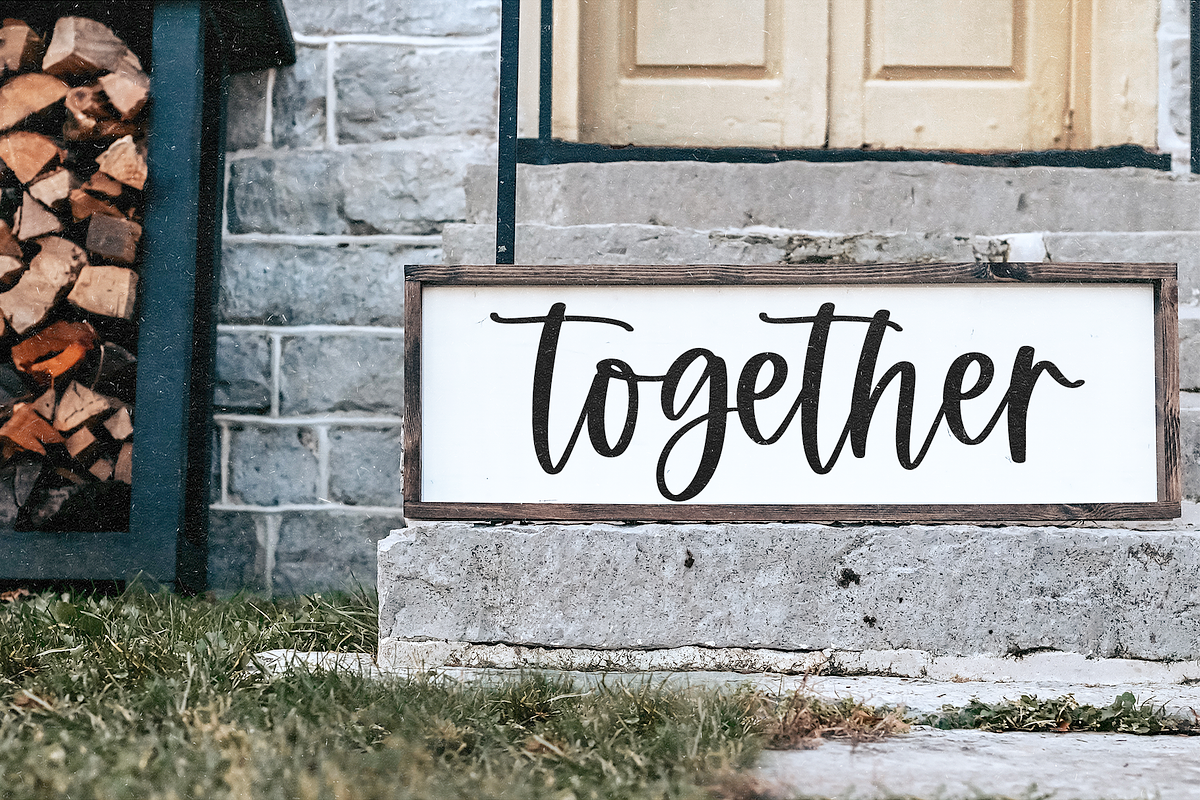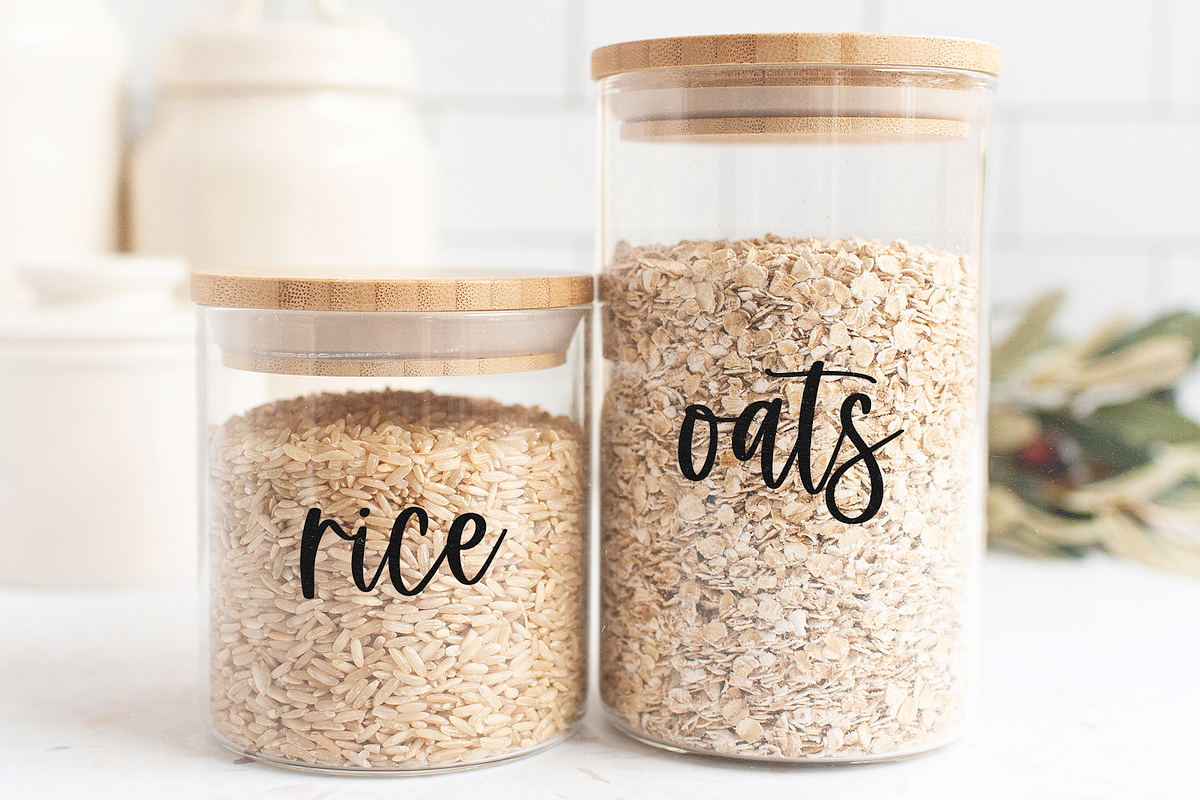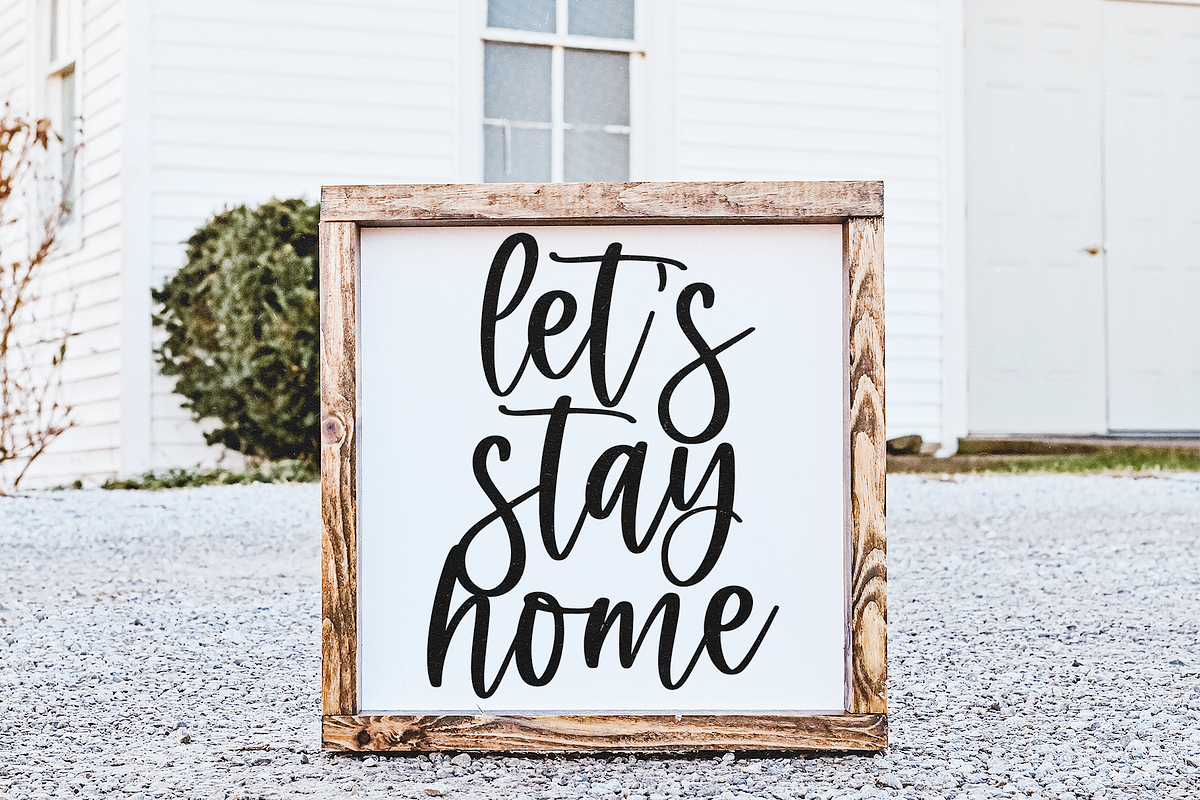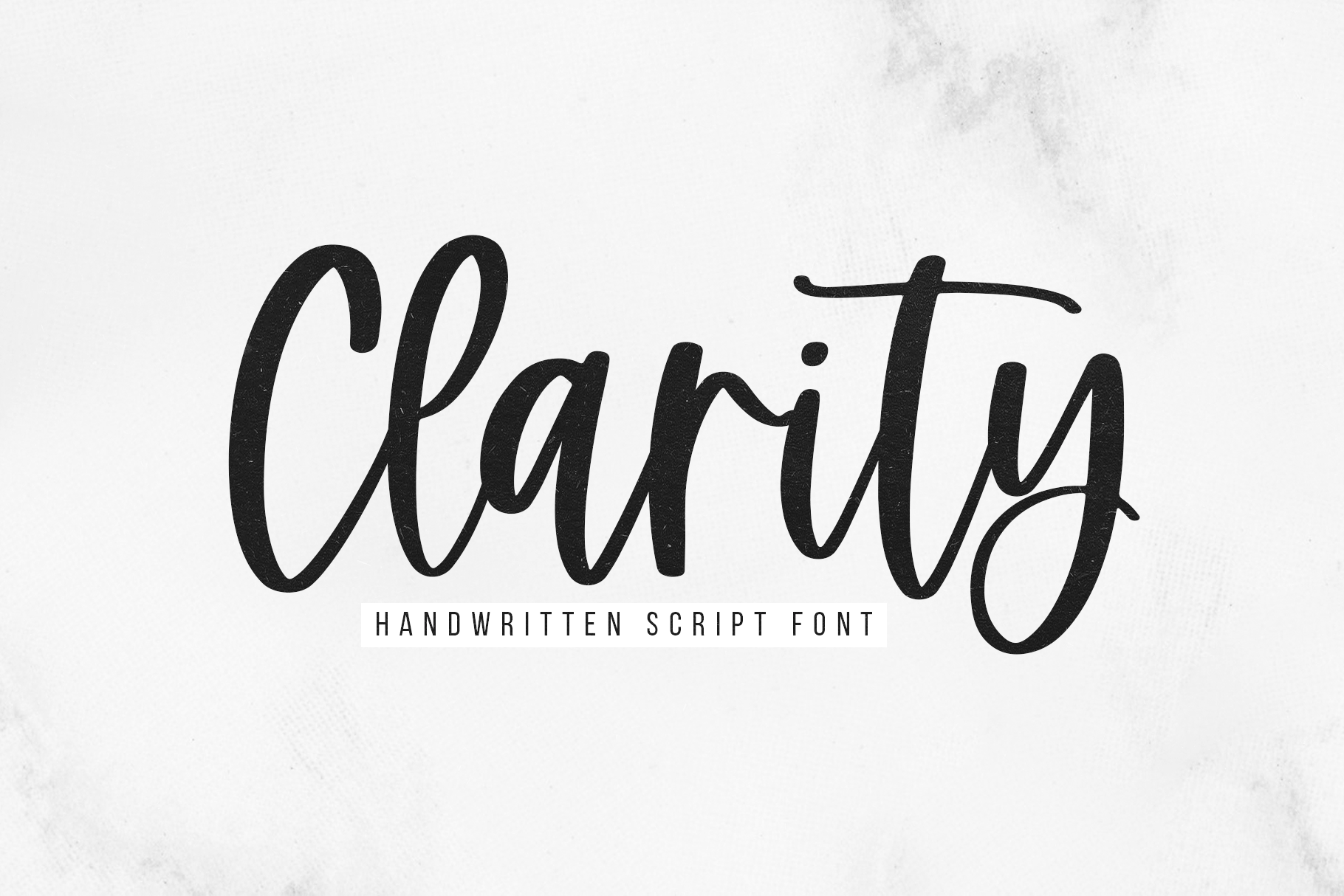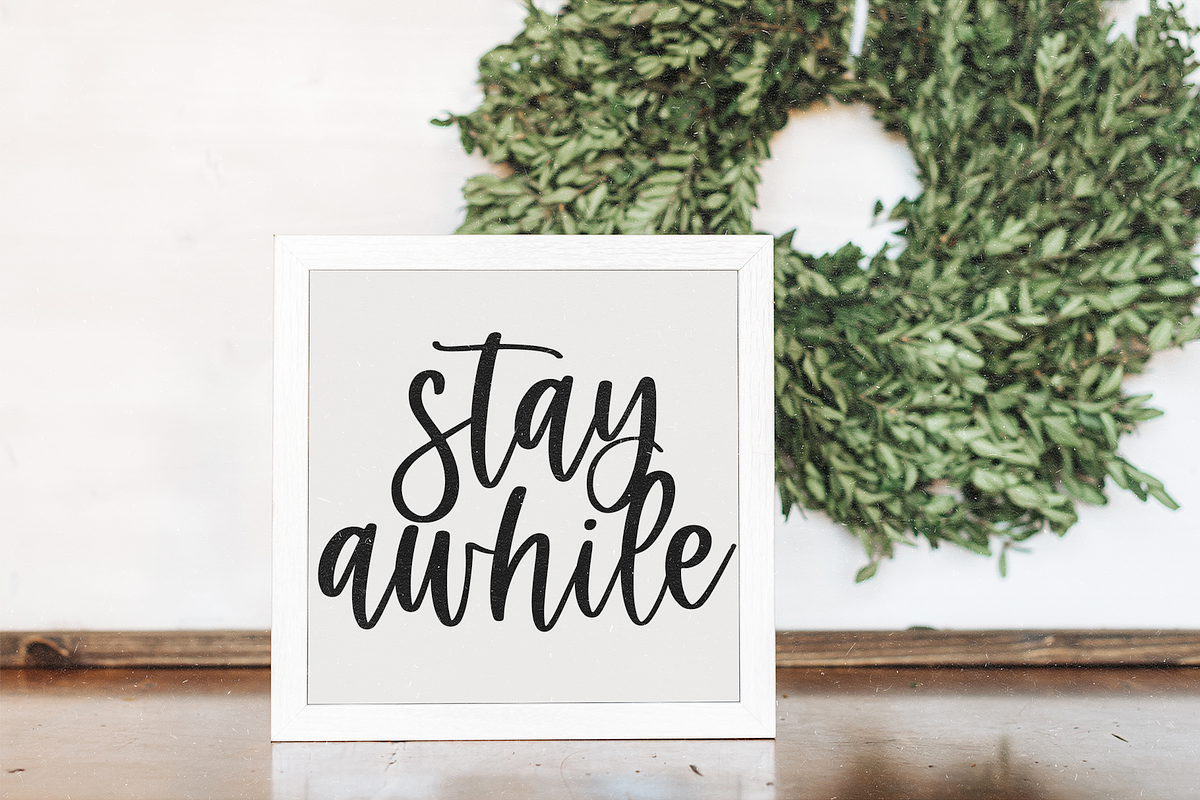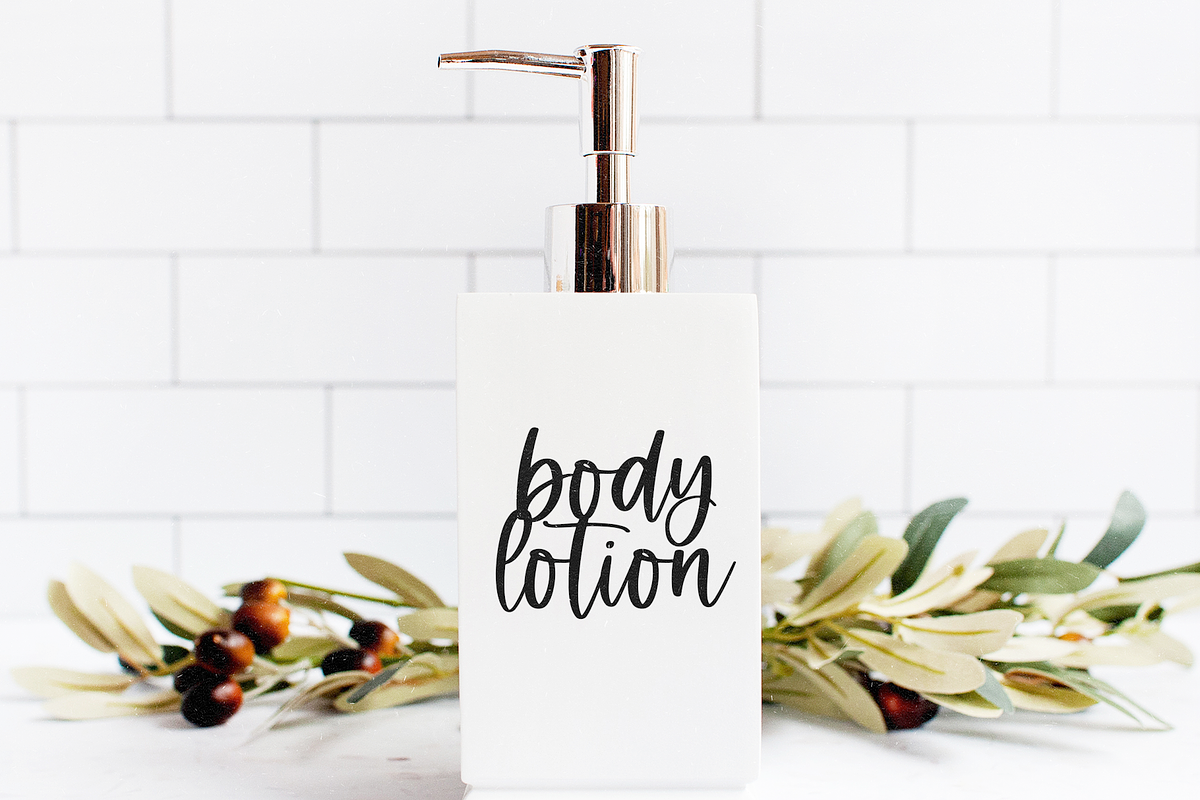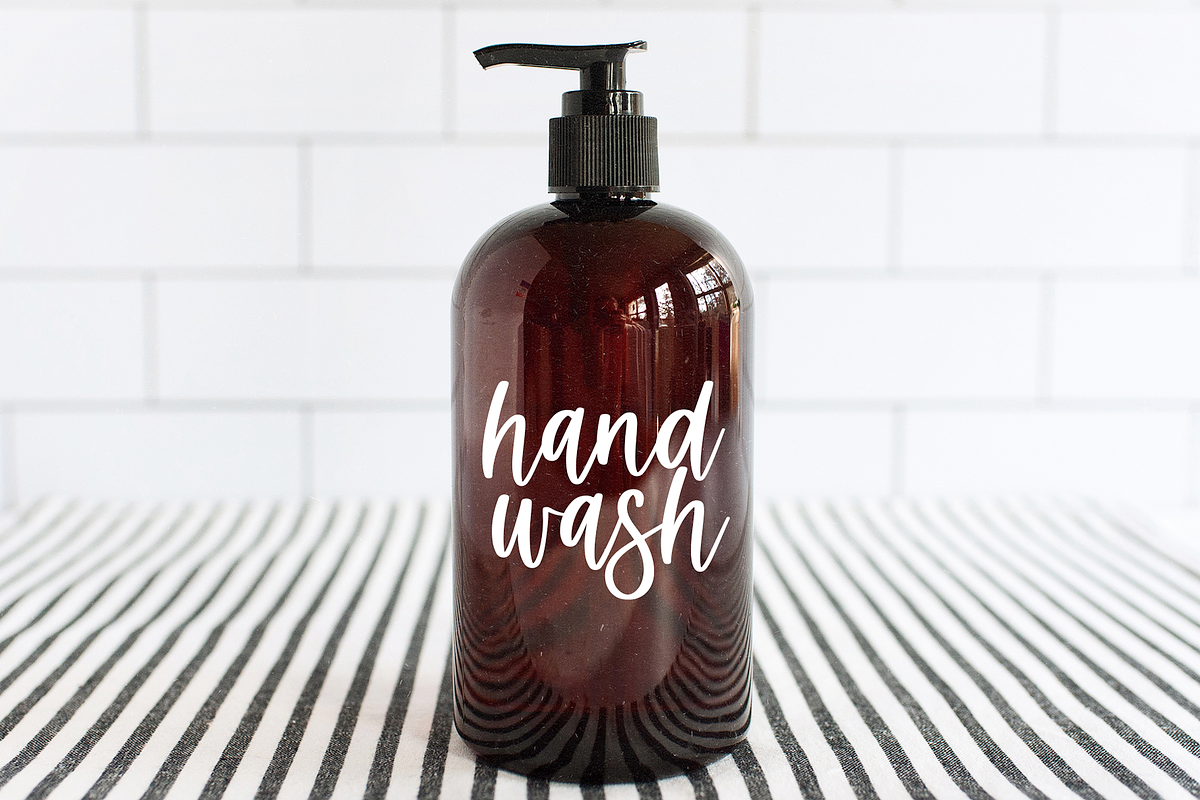
Clarity | Handwritten Script Font
Clarity is a handwritten script font.
This font is perfect for branding, logos, farmhouse decor, signs, shirts, svg designs, cricut projects, personalizations, wedding decor, invitations and more!